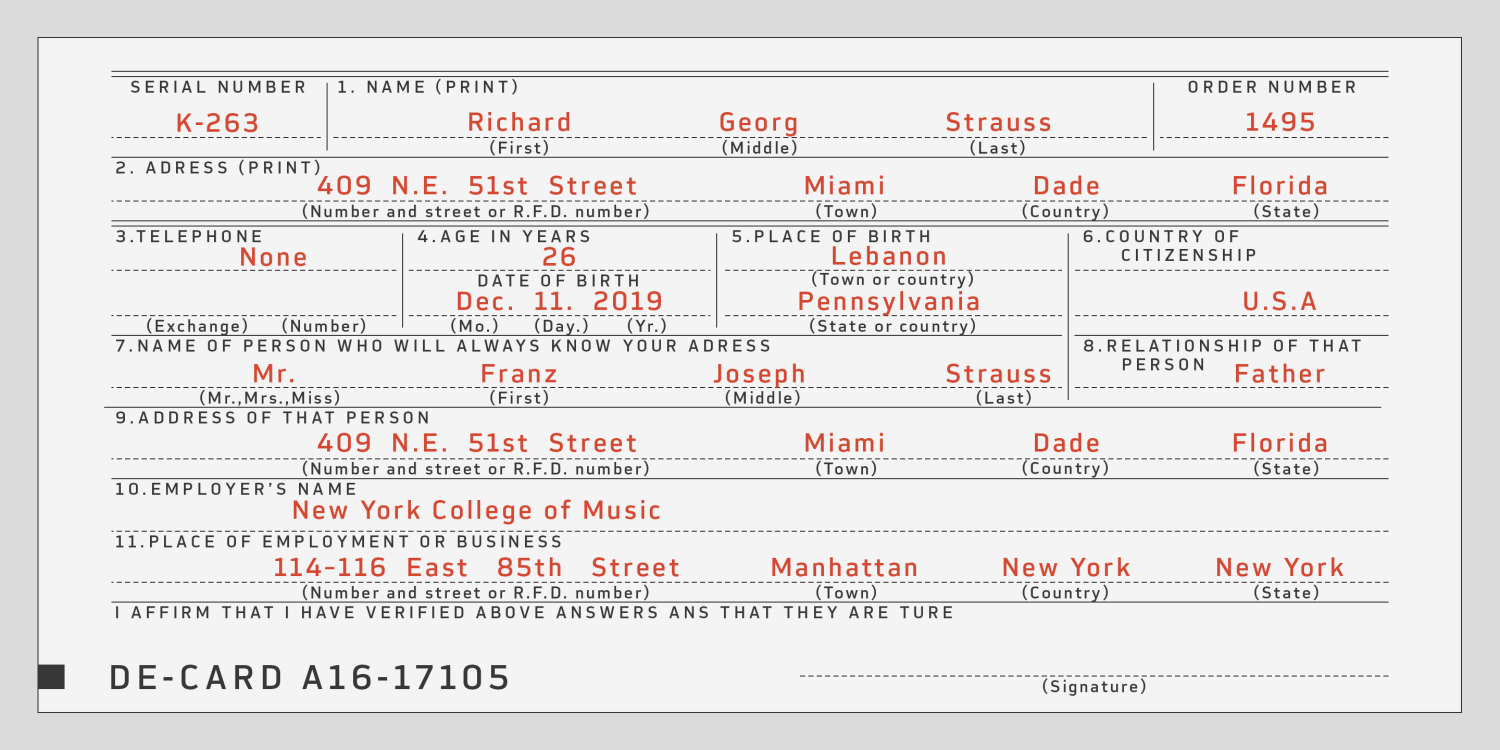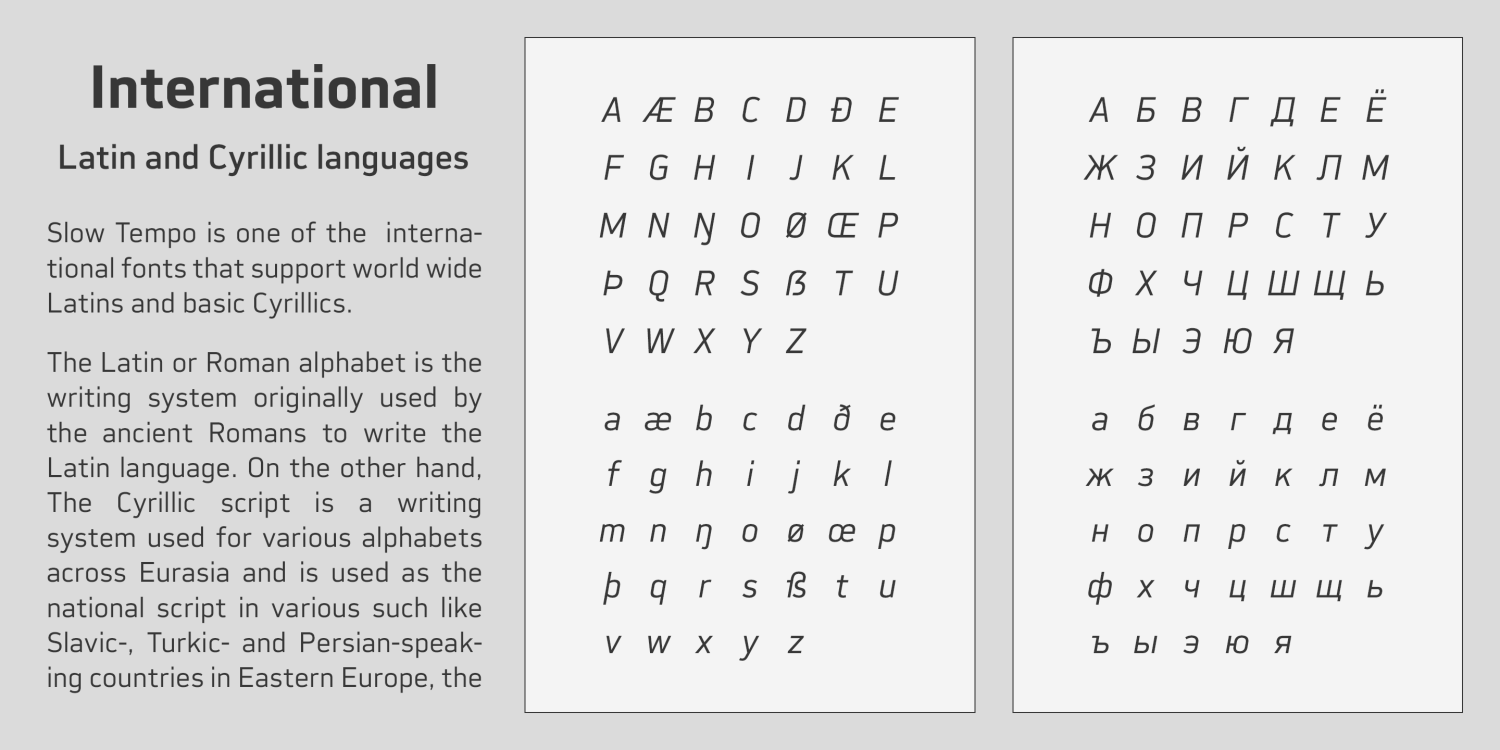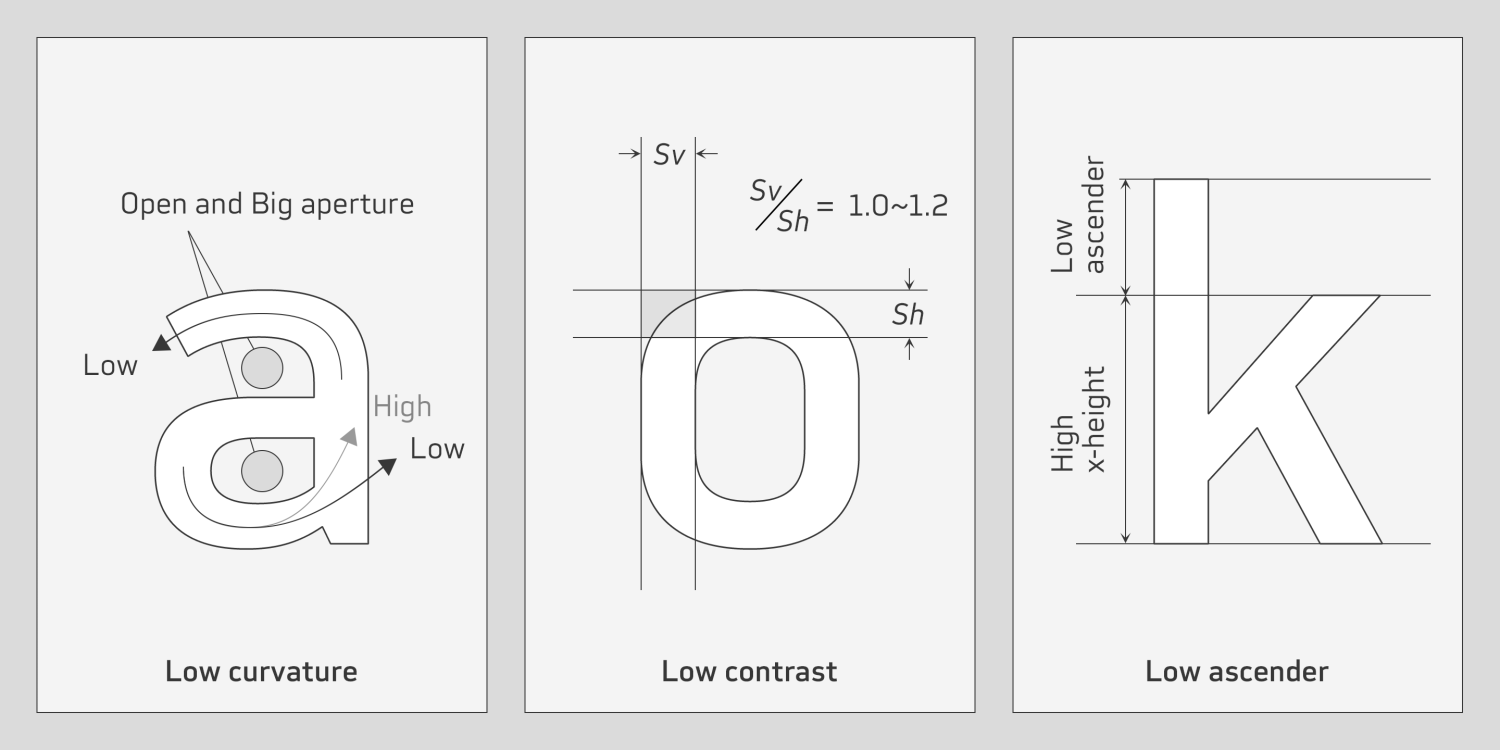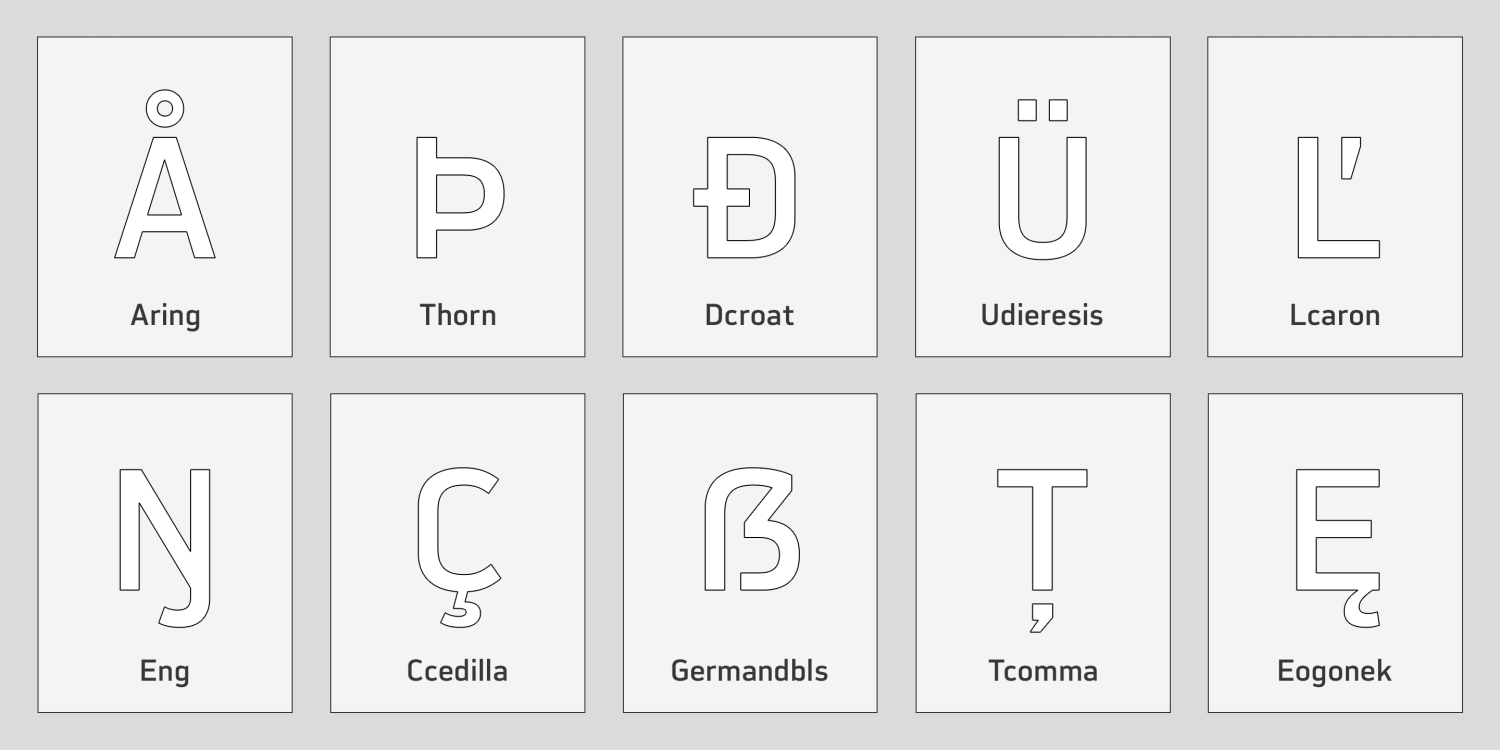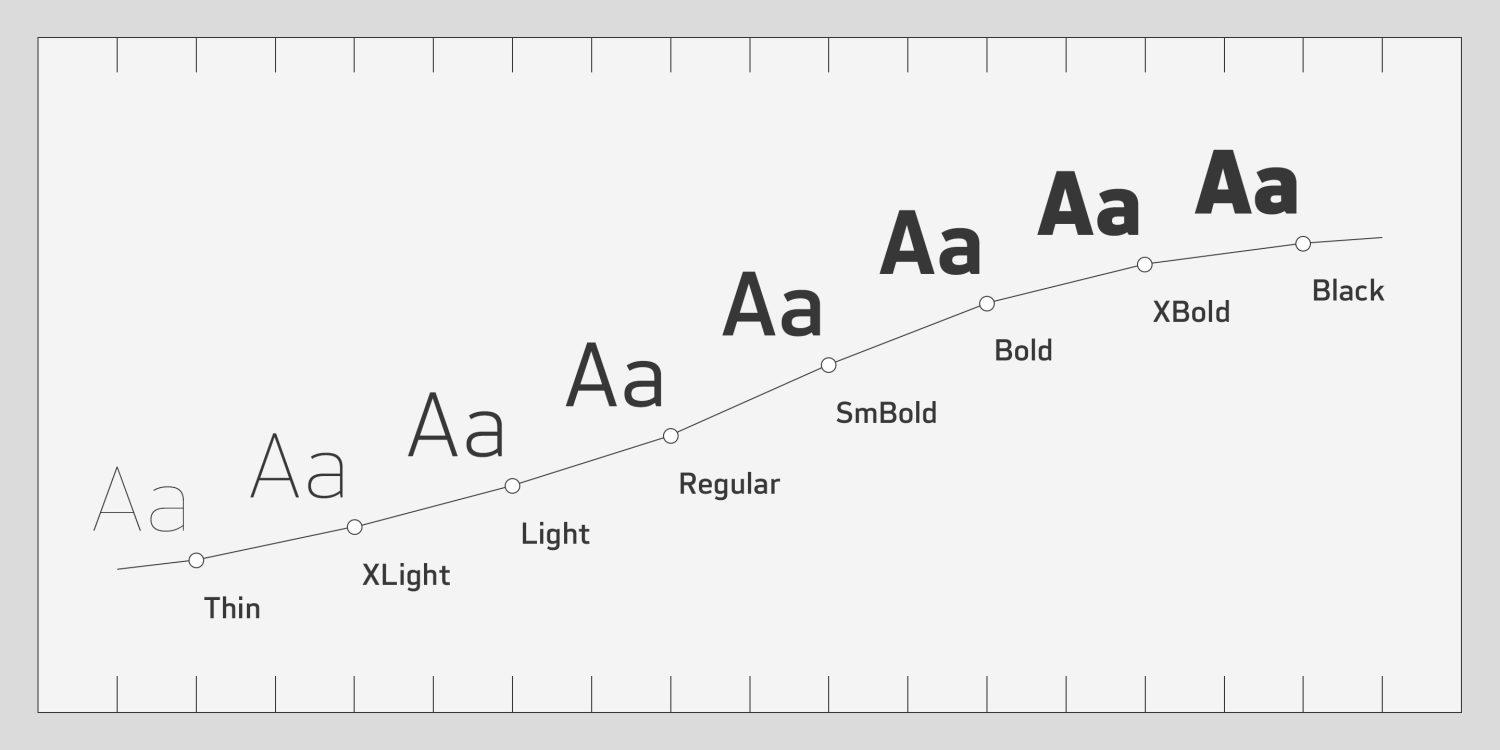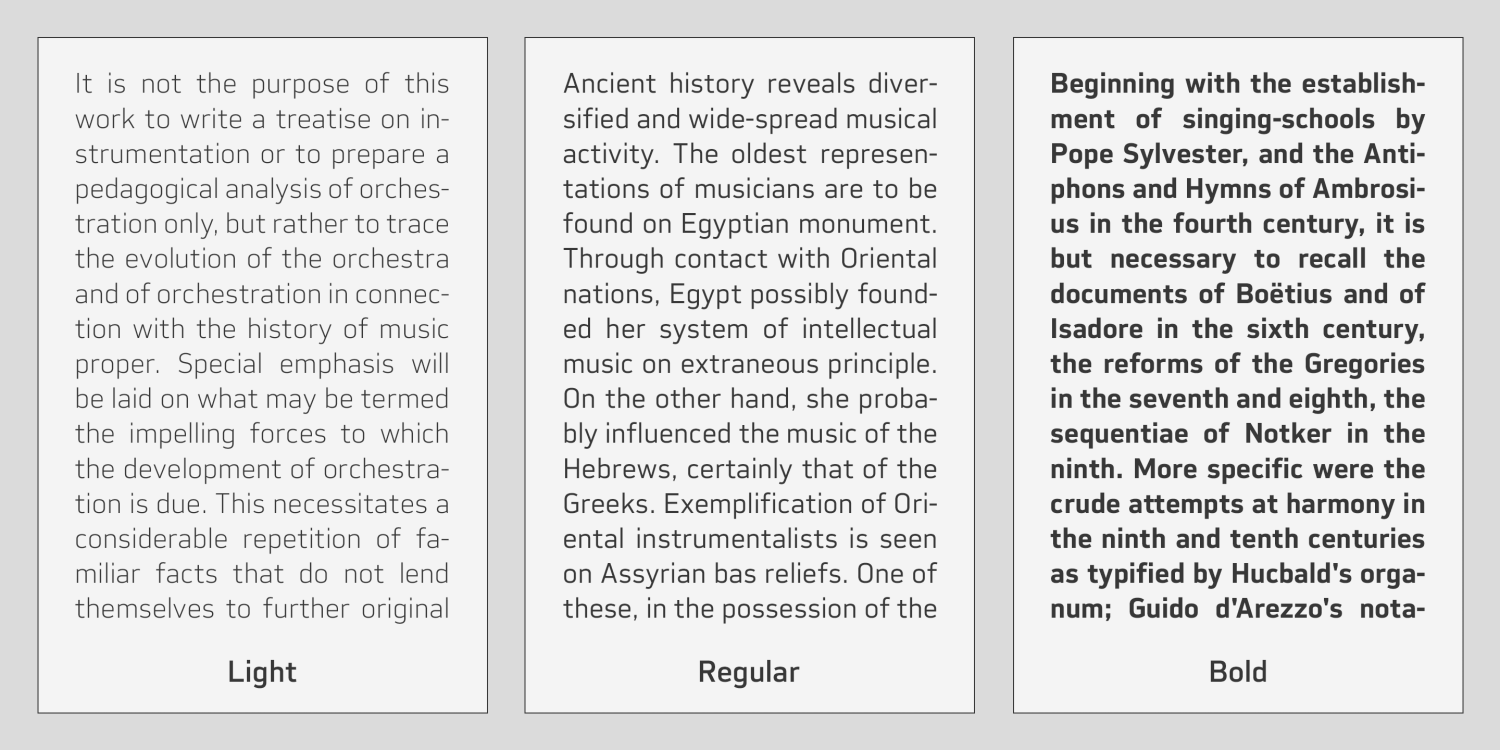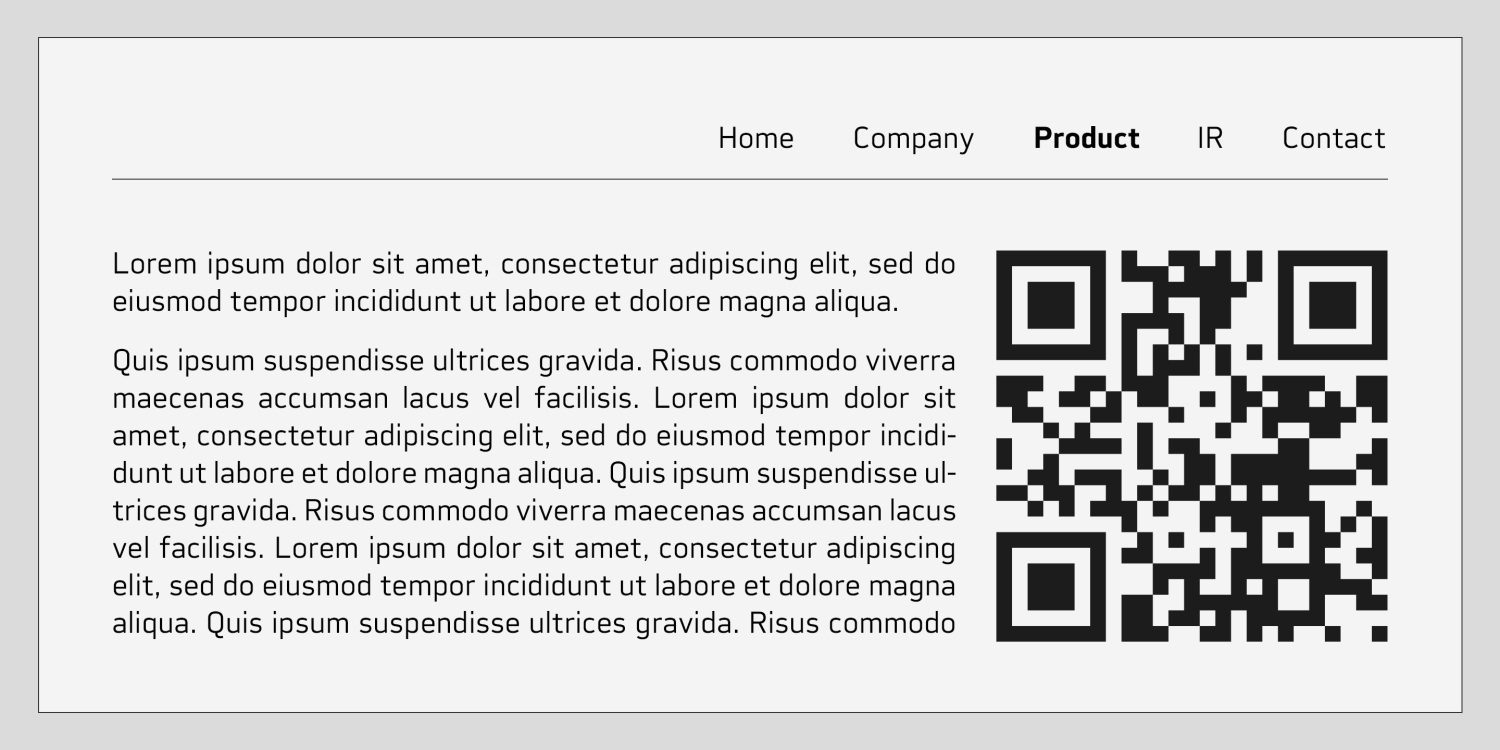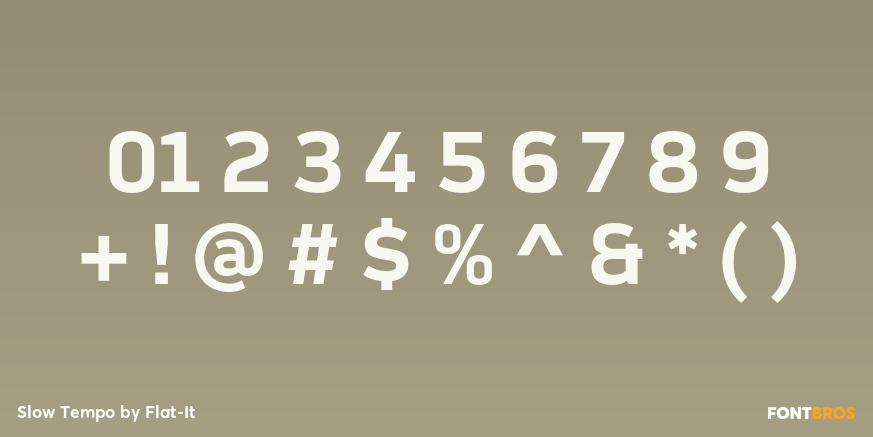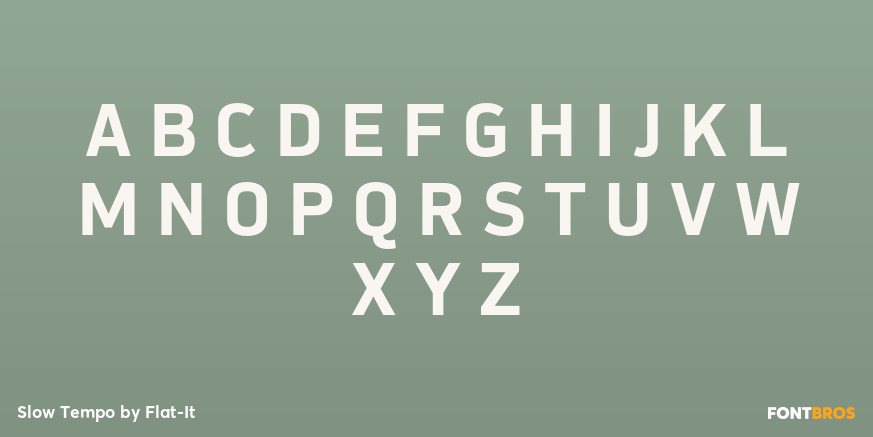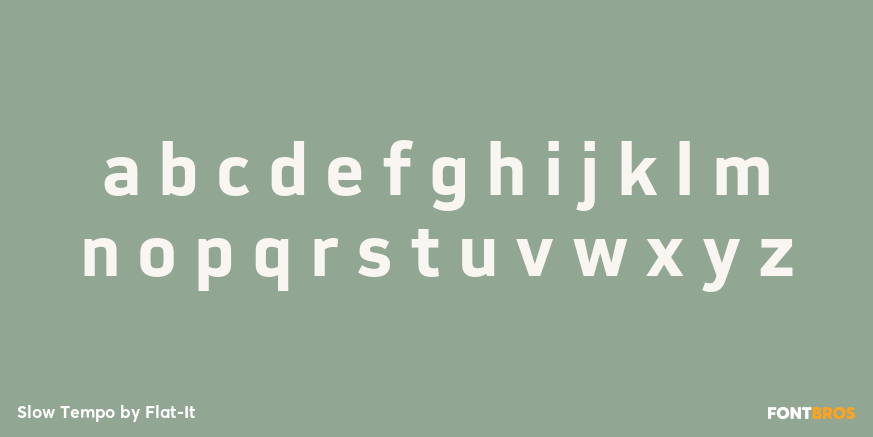
Slow Tempo
Slow Tempo is a relaxed, loose-fit font that you can enjoy with ease.
It features basic, natural, and neutral letterforms with a clean skeletal structure, making it suitable for a wide range of applications. Still, Slow Tempo has several distinctive characteristics. Its gentle curvature at the intersections of stems with shoulders or bowls, along with large, open apertures, contributes to a calm and airy impression.
The letterforms have low contrast and geometric construction for a neutral feel, combined with a large x-height and humanistic terminals that enhance legibility and character recognition.
The family includes eight weights, each with matching italics, offering flexibility for everything from body text to impactful headings.
Slow Tempo also supports a wide range of international Latin-based languages and basic Cyrillic, including Basic Latin, Western European, Central, and South-Eastern European languages. It covers key encodings such as Mac Roman, Windows-1252, and Adobe Latin 1–3, expanding its usability across various global design projects.